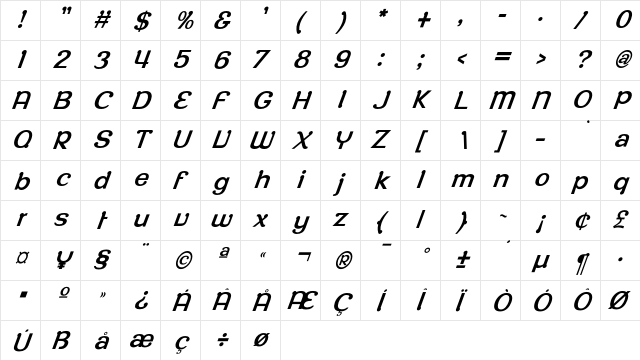
Roppongi is a composed and adaptable typeface that performs quietly and consistently across a wide range of design contexts. The slanted form adds forward momentum and visual energy. Its slender proportions lend an understated elegance to any composition.
Pro Tip: Use Roppongi for emphasis, pull quotes, and subheadings where its slanted energy can add rhythm to the layout.